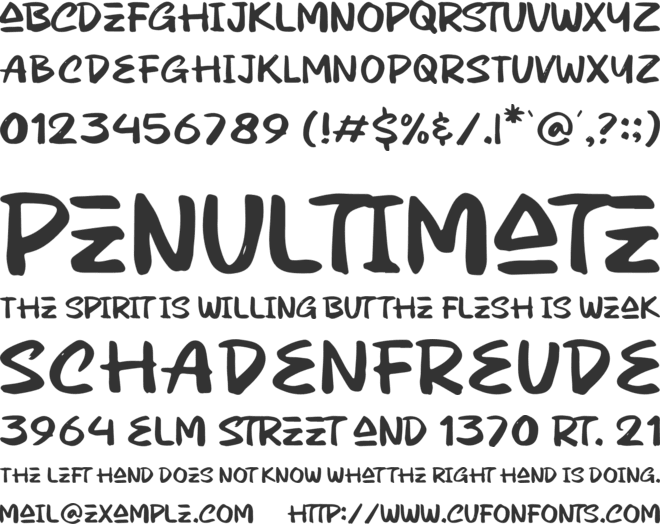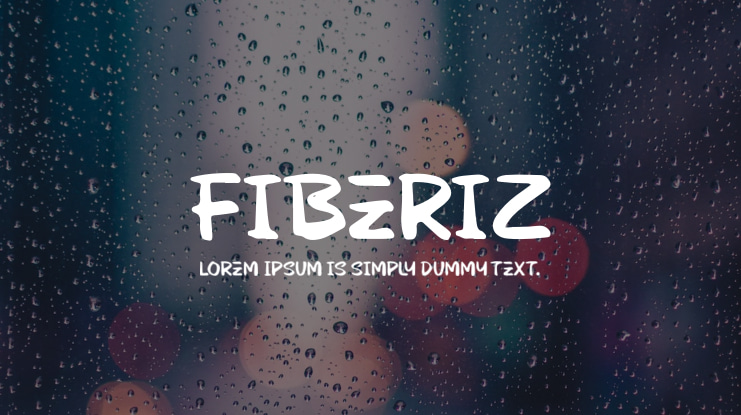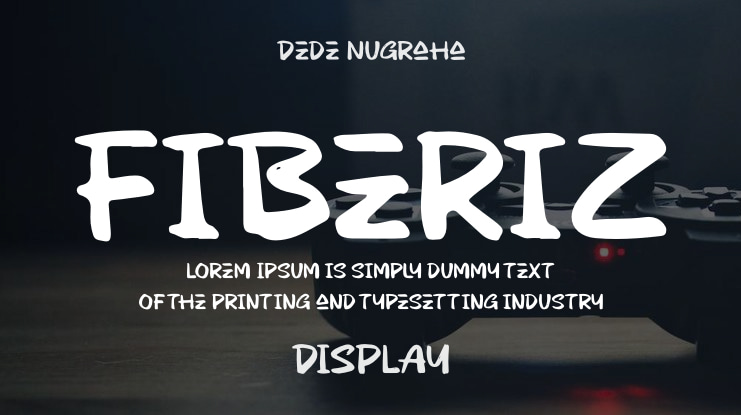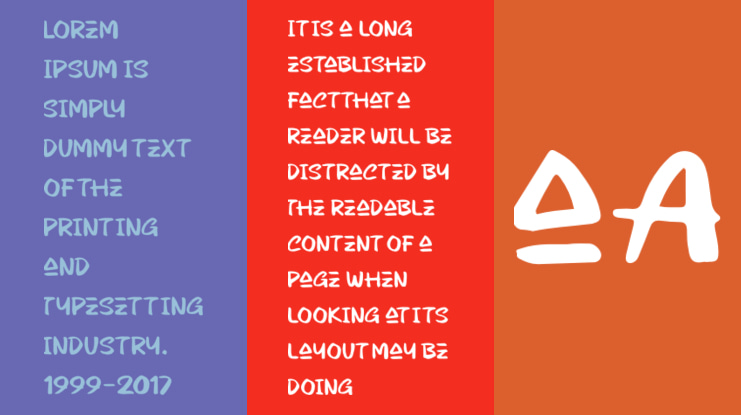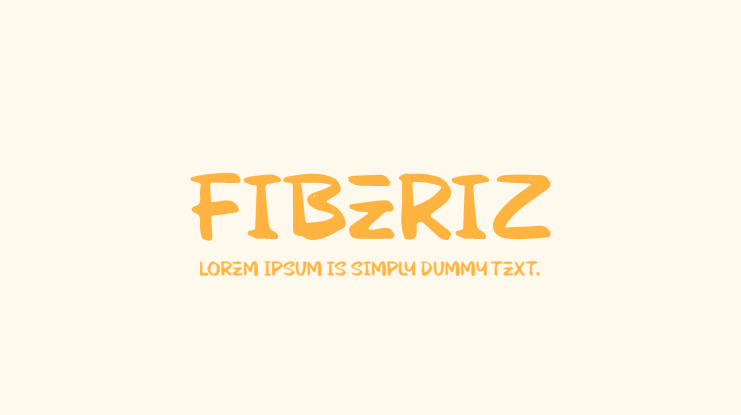
Fiberiz Font
The Fiberiz Brush Font is versatile and perfect for various projects such as logos, branding, homeware designs, product packaging, quotes, posters, t-shirts, and more. By using this font, you agree to the following terms: